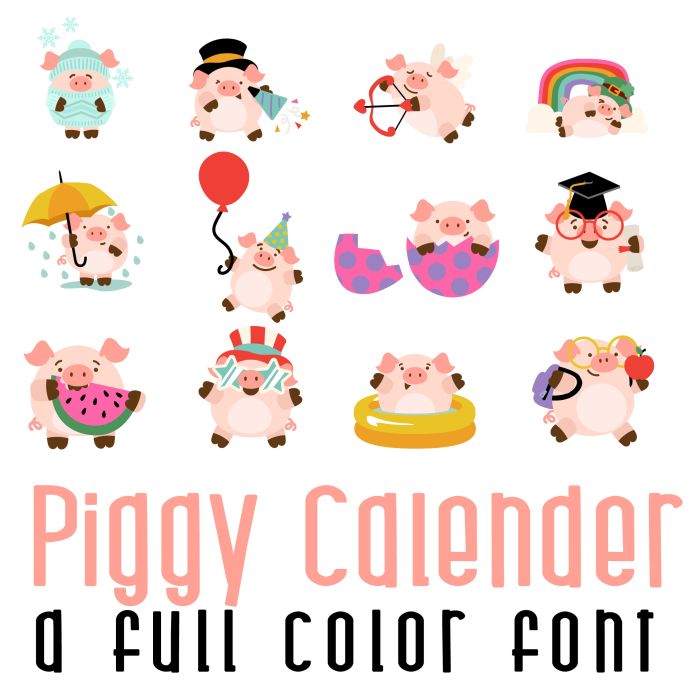
Piggy Calendar Full Color Font is a whimsical and playful font design featuring 26 adorable pigs for the entire Calendar Year. It is perfect for creating fun and eye-catching designs related to travel, seasons, farm animals, and holidays. The colorful and vibrant design adds a festive touch to any project, making it ideal for invitations, greeting cards, and posters. Perfect for classrooms, parties, cards, gifts, planner stickers, scrapbook pages and more!